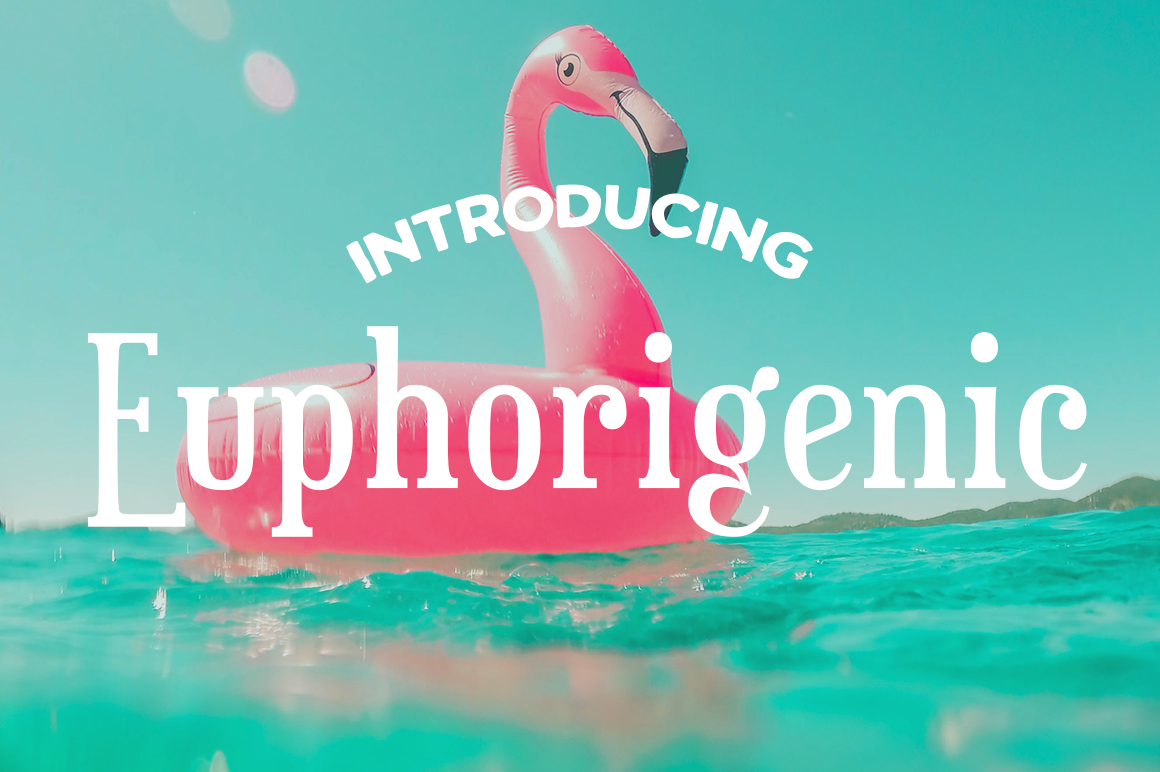
HomePersonal Use FreeEuphorigenic Personal Use Free Euphorigenic FacebookTwitterPinterestWhatsApp 1 of 1 About Euphorigenic Font Euphorigenic is a playful, slab-serif headline font. It will give your designs a luxe feel. DOWNLOAD NOW People also explored Vampire Font Font Second Diary Font Christina Font Erlangga Font Malliana Font Letterhand Font Bingong Font Black Attacks Font Jhonathan Hartman Font 213 0 TagsEuphorigenic Font Previous articleButter BellyNext articleStill Time LEAVE A REPLY Cancel reply Comment: Please enter your comment! Name:* Please enter your name here Email:* You have entered an incorrect email address! Please enter your email address here Website: Save my name, email, and website in this browser for the next time I comment. Personal Use Free Xplor Personal Use Free Read more about this font Airmole Personal Use Free Read more about this font Love Story Personal Use Free Read more about this font Better Together Duo Personal Use Free Read more about this font BLOG Transform Your Website: Elevate Your Typography with 7 Best Web Font Generators Are you ready to transform your website's typography from ordinary to extraordinary? Great! Today, we're diving into the world of web font generators, which... Best Fonts for T-Shirt Design – Top 2025 Picks Exploring Font Trends Elegant Wedding Invitation Fonts – Handwritten & Script Fonts